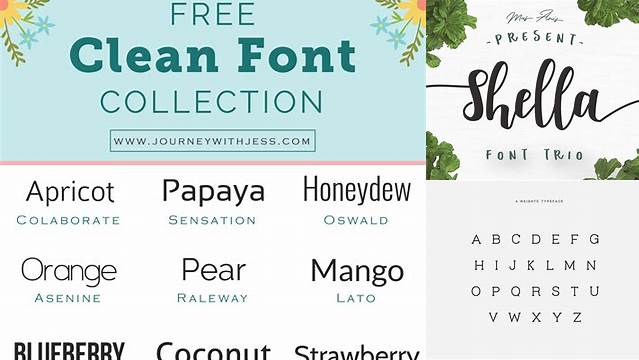
Clean Free Fonts Guide: Stylish Typography For All
Finding the perfect font can be a real game-changer, right? It's like choosing the right outfit – it can make or break the whole look! And when it comes to design, whether it's for a website, a presentation, or even a personal project, the font you choose is super important. It sets the tone, conveys your message, and can even influence how people perceive your brand. But let's be real, great fonts don't always come cheap. That's where clean free fonts come in! They're a fantastic resource for anyone looking to elevate their design game without breaking the bank. In this guide, we'll dive into the world of these awesome, free fonts, exploring some of the best options out there, and giving you tips on how to find and use them effectively. So, if you're ready to level up your typography skills, stick around – this one's for you!
Why Clean Free Fonts Matter
Okay, so why all the fuss about clean free fonts? Well, think about it: typography is everywhere. From the websites we browse to the apps we use, the books we read to the billboards we see, fonts shape our experience. They're not just about readability; they're also about aesthetics and creating a certain feeling. A well-chosen font can grab your attention, communicate a brand's personality, and make information more accessible. And the best part is that the options for clean free fonts are constantly growing. There are tons of designers and foundries out there offering amazing fonts for free, often under open-source licenses, making them accessible to everyone. This accessibility is a huge win for both budding designers and established professionals who want to experiment with different styles without having to worry about licensing fees. When you're working on a project, whether it's a blog post, a social media graphic, or a full-blown website design, the right font can make a huge difference. It can turn something ordinary into something extraordinary! With the abundance of clean free fonts, you can experiment with different styles. From sleek and modern sans-serifs to elegant and classic serifs, the possibilities are endless. This gives you the freedom to find the perfect font that suits your project's needs and resonates with your audience.
Benefits of Using Free Fonts
Let's break down why clean free fonts are so awesome and what you can gain from using them. First off, as mentioned, they're free! This is a massive advantage, especially for those just starting out or for anyone on a tight budget. You can access a huge library of fonts without spending a dime, which means more resources can be used for other important design needs. Another major advantage is the variety. The web is brimming with clean free fonts, so you can find almost any style you can imagine – and it is growing all the time! Whether you need a font for a website, a logo, or a print project, chances are you'll find something that fits the bill. Free fonts are often designed with versatility in mind. Many come with a range of weights and styles (like bold, italic, and different widths), which lets you create a consistent look across your design. When a font family has many weights, it provides flexibility so that you can highlight different parts of your text in an easy way. Moreover, the open-source nature of many clean free fonts means they’re often very well-documented. You'll usually find information about the font's licensing, character sets, and usage guidelines, making it easy to integrate them into your projects without any confusion. It also ensures that you're using the font legally and responsibly, which is super important. Using clean free fonts also gives you the freedom to experiment. Try out various fonts until you find the perfect match for your project. Because they are free, you can test a bunch of fonts without worrying about the cost. So go wild and see what works best! Lastly, many clean free fonts are designed to be optimized for the web, guaranteeing that your text will look great on any device and screen size. This is crucial in the age of mobile browsing, where your site has to look amazing on all devices. By choosing web-optimized fonts, you make your site more accessible and user-friendly.
Where to Find the Best Clean Free Fonts
Alright, now that you're sold on the power of clean free fonts, let's talk about where to find them. The internet is a treasure trove, but you want to make sure you're getting your fonts from reputable sources. Here are a few of the best places to start your font quest:
Google Fonts is a complete game-changer. This is the go-to resource for many designers. It's a massive library of clean free fonts, all open-source and completely free to use. The fonts are well-organized, easy to browse, and come with clear licensing information. Google Fonts is also super user-friendly, with tools to preview the fonts and see how they'll look in your design. The selection is super diverse, covering various styles from classic serifs to modern sans-serifs. And the best thing is that Google Fonts is constantly updated, so there are always new options to explore. To make your life easier, Google Fonts provides embed codes, so integrating the fonts into your website is a piece of cake. Plus, most of the fonts are optimized for web use, which means your text will load fast and look good on all devices. Google Fonts is an incredible resource for anyone looking for quality, free fonts. From a font for a simple personal project to a font for a complex design project, this is the place to start. It has everything you need. It's a cornerstone of the free font ecosystem, and it continues to be a top choice for designers worldwide. Google Fonts’ popularity also means that the fonts are widely supported, so you're unlikely to run into compatibility issues.
Font Squirrel is another excellent resource for clean free fonts. It's not as big as Google Fonts, but it's still a great place to find high-quality fonts, and it has a curated collection, meaning everything is top-notch. Font Squirrel is known for its focus on quality and its commitment to ensuring that all fonts are free for commercial use. This is a big advantage for designers who want to use the fonts for commercial projects without having to worry about licensing issues. They offer a font identification tool, which is perfect for those moments when you see a font you love but don't know the name of it. If you like a font and you want to make sure that it's perfect for your needs, you can use their tool. Font Squirrel also offers some exclusive fonts you won't find anywhere else, which can give your designs a unique edge. It is very user-friendly with a clean interface, and you can easily browse the fonts by style, popularity, or other categories. Font Squirrel provides helpful information about each font, including licensing details and usage guidelines. Because the fonts are hand-picked, you can rest assured that the quality is excellent. It's an awesome site for finding fonts that are both beautiful and legal to use.
DaFont is one of the most popular font websites out there, and it's a great place to start looking for a font. This site hosts a massive collection of clean free fonts, with tons of different styles and categories to choose from. The interface is simple, which lets you easily navigate and find what you're looking for. Whether you want a script font, a display font, or something more practical, you'll find it here. DaFont has a huge variety, so it has a style to fit almost any project. Be careful, because it has a lot of fonts. The selection is enormous, which means you'll find both well-designed fonts and less-polished ones. Since DaFont is a community-driven platform, you will find both free and paid fonts. It is important to review the licensing information for each font before you download it to make sure it is free for your intended use. Always check the licensing terms to avoid any legal issues. DaFont is constantly updated with new fonts, ensuring that you always have something fresh to choose from. DaFont is an excellent resource for designers who want to discover a variety of free fonts.
Choosing the Right Clean Free Font
Okay, so you've found some awesome sources for clean free fonts – now what? Choosing the right font is a bit of an art form, but here are some tips to help you pick the perfect one for your project.
Consider Your Project's Purpose
First, think about what your project is actually about. Is it a professional website, a fun blog, or something else entirely? The purpose of your project will greatly influence your font choice. For a corporate website, you might want a clean, easy-to-read sans-serif font that communicates professionalism and trustworthiness. If you're working on a creative blog, you might try something more fun and playful. Keep in mind that your font should reflect the goals and personality of your project. Readability is also super important. Does the font need to be legible on a small screen, or will it be displayed at a large size? Make sure the font is easy to read at all the sizes you'll be using it. If your goal is for people to read your content, make sure they can! Also, make sure the font complements your brand. Does the font align with your brand's visual identity? A mismatch can be confusing and even damage your brand's image. The goal is to pick fonts that make people think about the subject in a certain way.
Understand Font Types
There are various font types to choose from, each with its own personality and best uses. Understanding these types will help you narrow down your choices. Serif fonts have small strokes at the end of the letters, making them a classic choice for body text, like books or articles. They can add a touch of elegance and tradition to your design. Sans-serif fonts, on the other hand, do not have these strokes. They are more modern, clean, and easy to read on screens, which makes them great for websites and digital interfaces. Script fonts mimic handwriting and are great for adding a personal touch, such as in invitations or logos. Use them sparingly, as they can be harder to read. Display fonts are designed to stand out and are typically used for headings or titles. They're often bold and eye-catching, designed to grab attention. Also, keep in mind that the font you choose will set the tone of your design. The best approach is to experiment and discover which type of font fits your design the best.
Check for Licensing
It's crucial to always check the licensing details before using a clean free font. While most free fonts are free for personal use, some may have restrictions on commercial use. Look for fonts with an open-source license or those that explicitly state they are free for both personal and commercial purposes. Pay special attention to licensing if you plan to use the font for a business or a project that will generate income. If you're unsure, it's always best to contact the font designer or the website where you downloaded the font. By understanding the licensing terms, you protect yourself from legal issues and ensure you're using the font ethically. Make sure you read the licensing agreement carefully to fully understand how the font can be used. By paying attention to the licensing, you can ensure that your work is professional and within the legal guidelines.
Conclusion: Embrace the World of Clean Free Fonts
So, there you have it, guys! With the wealth of clean free fonts available, there's no limit to your design possibilities. By using the tips we've discussed, you can find awesome fonts that will take your designs to the next level without breaking the bank. Always make sure to explore the various sources for these amazing fonts and test out different combinations. Keep experimenting, be creative, and most importantly, have fun! Happy designing!